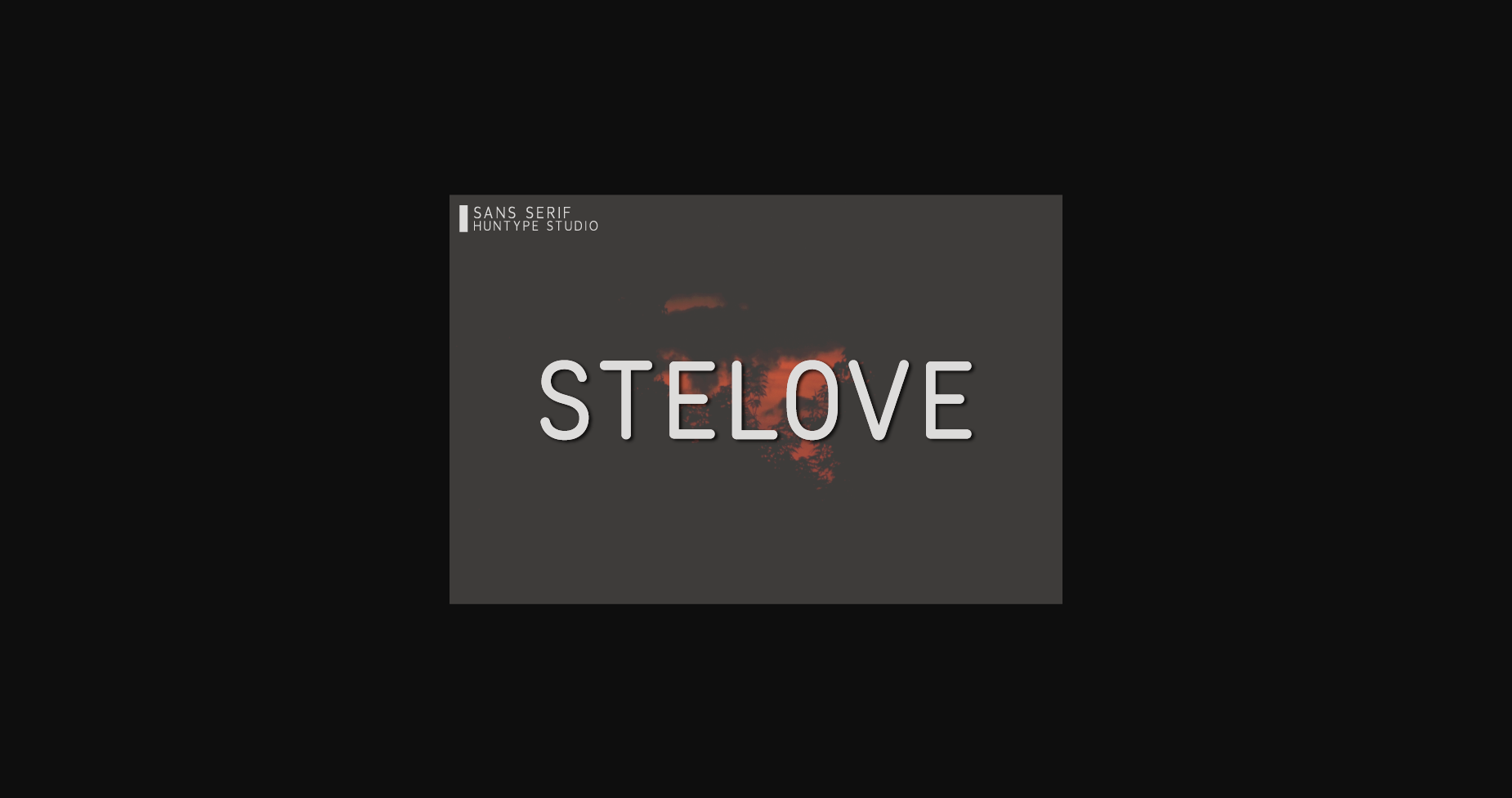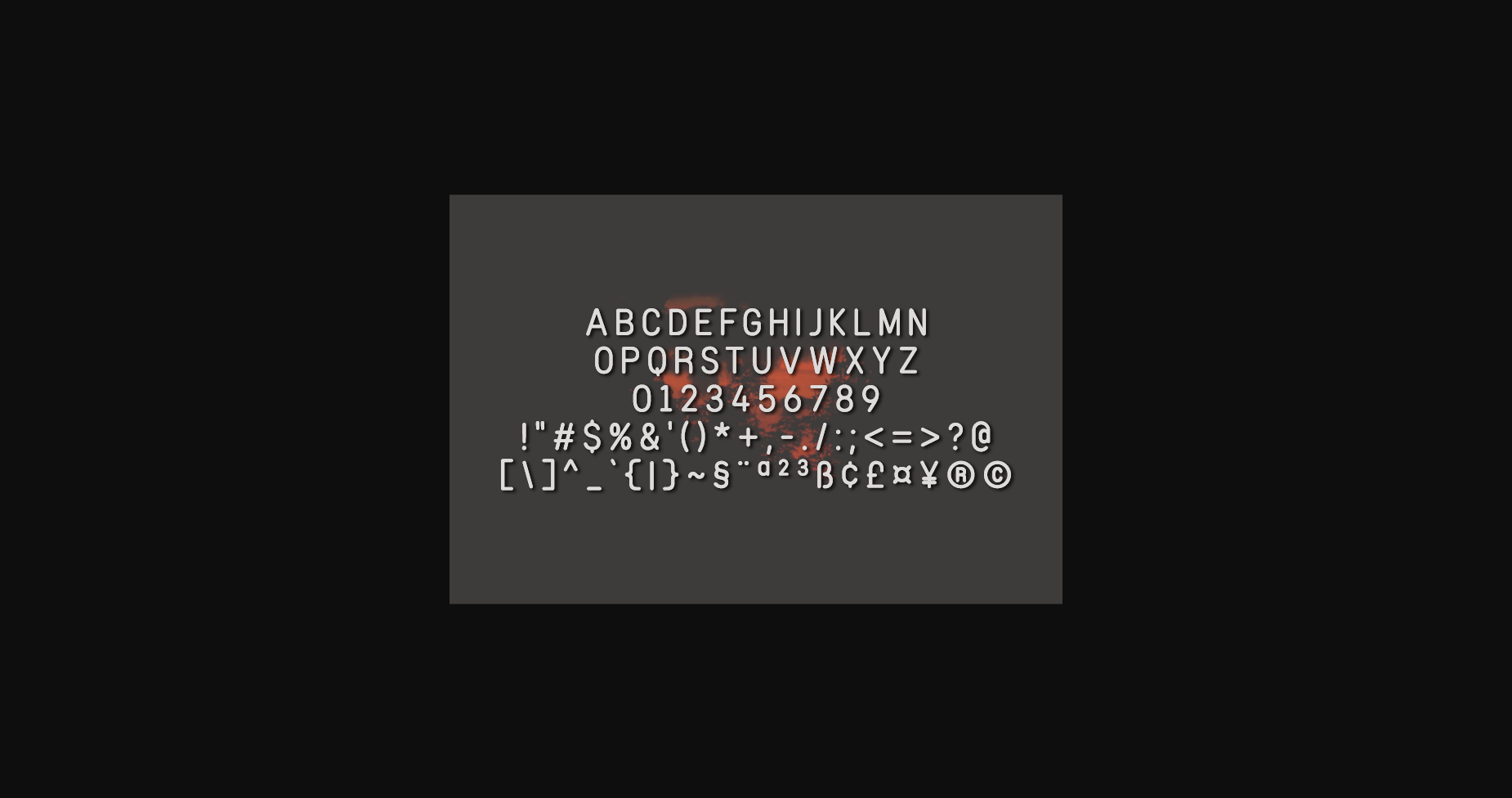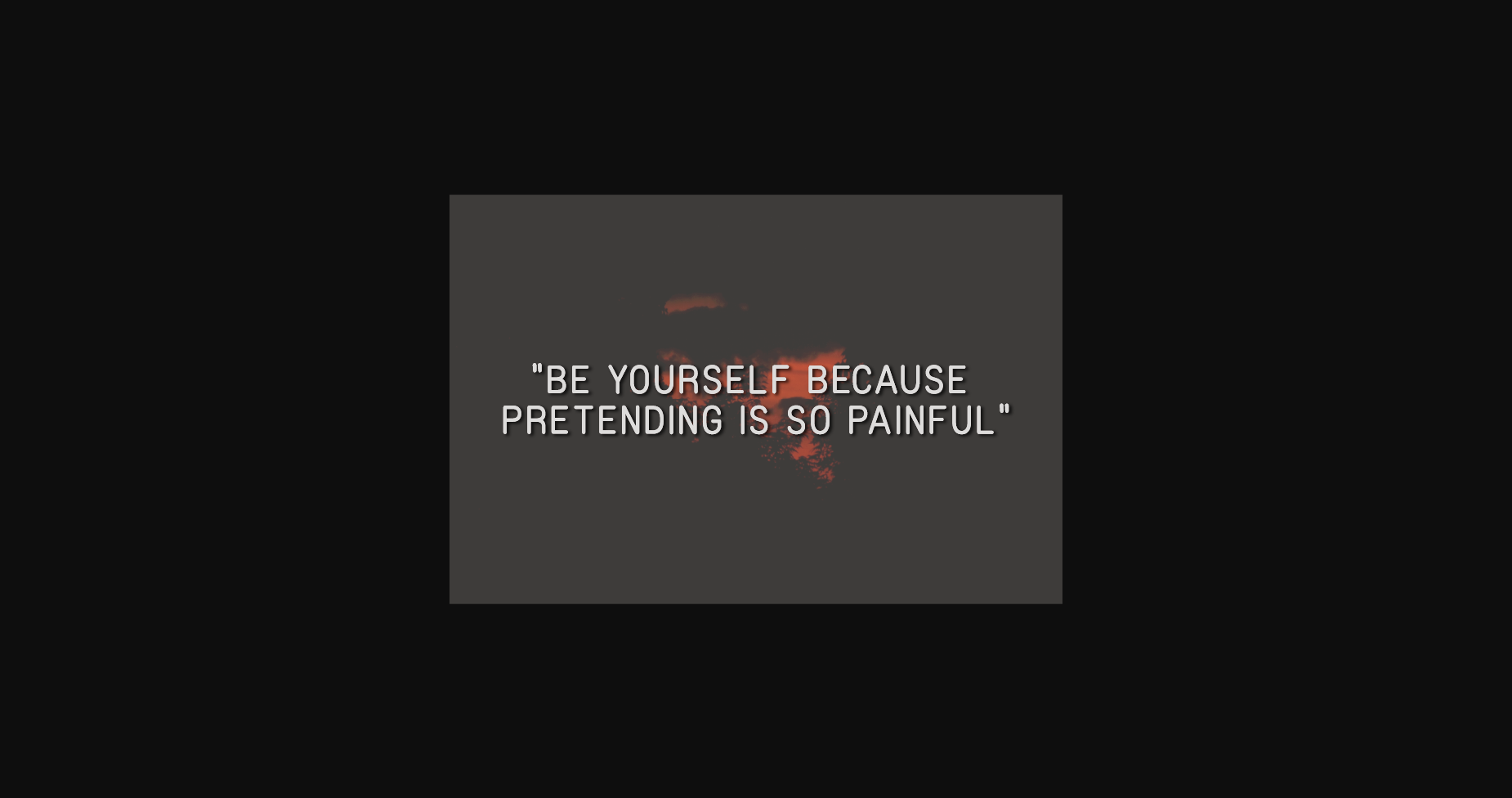
Stelove Font
About Stelove Font
Stelove is a clean and simple sans serif font. With smooth and delicate lines, this font works beautifully for logos, branding, and web headings.